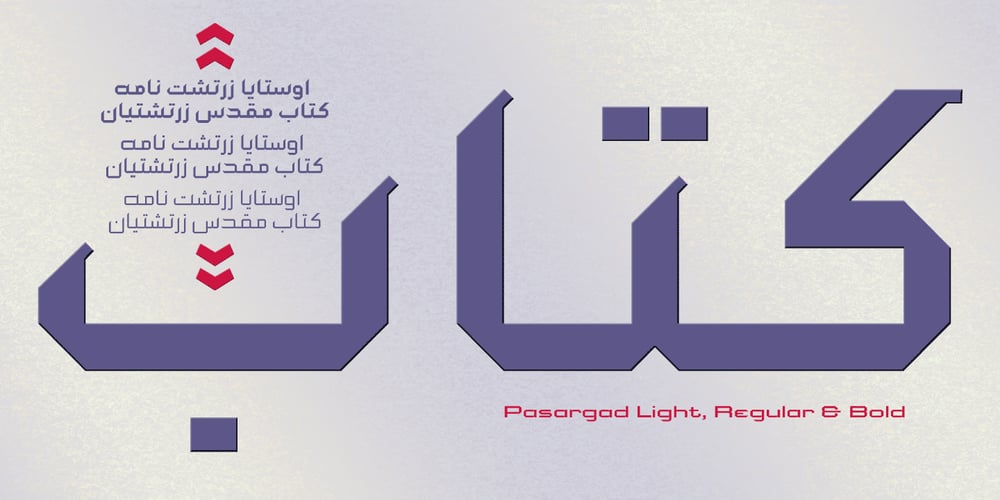
Pasargad Font Family was designed by Naghi Naghashian and published by Naghi Naghachian. Pasargad contains 3 styles and family package options. Pasargad is a new font family, designed by Naghi Naghashian. It is a Font family in 3 weights, Light, Regular and Bold. This font is a contribution to modernisation of Arabic typography, gives the font design of Arabic letters real typographic arrangement und provides more typographic flexibility. Pasargad supports Arabic, Persian and Urdu. It also includes proportional and tabular numerals for the supported languages. Pasargad design fulfills the following needs: A Explicitly crafted for use in electronic media fulfills the demands of electronic communication. B Suitability for multiple applications. Gives the widest potential acceptability. C Extreme legibility not only in small sizes, but also when the type is filtered or skewed, e.g., in Photoshop or Illustrator. Pasargad’s simplified forms may be artificial obliqued in InDesign or Illustrator, without any loss in quality for the effected text. D An attractive typographic image. Pasargad was developed for multiple languages and writing conventions. Pasargad supports Arabic, Persian and Urdu. It also includes proportional and tabular numerals for the supported languages. E The highest degree of calligraphic grace and the clarity of geometric typography.